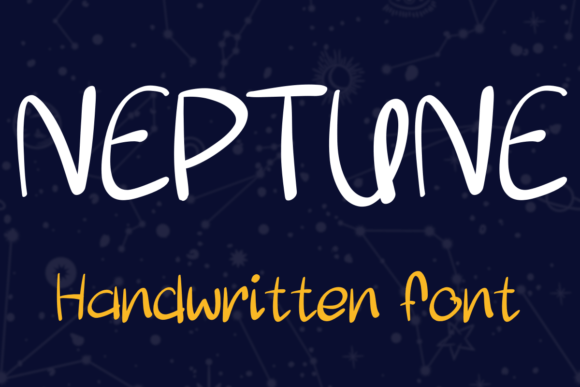
Say hello to Neptune Font, a charming and charismatic sans serif creation by Piyata Digital, designed to ignite your creativity and elevate your designs to new heights. Neptune's playful and friendly curves dance across the page, exuding a sense of joy and wonder that's sure to captivate your audience.
Neptune's versatility is as boundless as your imagination. Its playful nature makes it a perfect fit for projects aimed at children, such as school projects, invitations, and greeting cards. Its festive flair shines through in designs for holidays like Easter, Halloween, and Christmas, adding a touch of whimsy and cheer to any celebration.
Neptune's sprightly charm also lends itself beautifully to personal touches like clothing and mugs, transforming them into one-of-a-kind expressions of your unique personality. Its legibility and clarity make it a wise choice for blog posts and social media graphics, ensuring your messages are conveyed with clarity and impact.
Neptune's boundless versatility extends to a myriad of projects, including posters, invitations, and eye-catching designs for social media. Its ability to effortlessly blend with both formal and informal settings makes it a font that truly stands out from the crowd.
Dive into the world of Neptune Font and unleash your creativity. Let its cheerful and inviting spirit infuse your designs with a sense of lightheartedness and joy. With Neptune as your font of choice, the possibilities are endless, and your designs are sure to leave a lasting impression on all who encounter them.